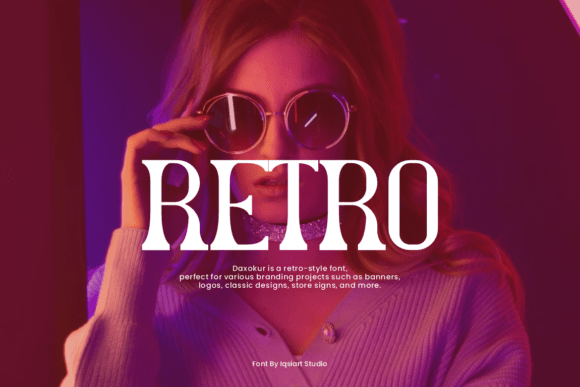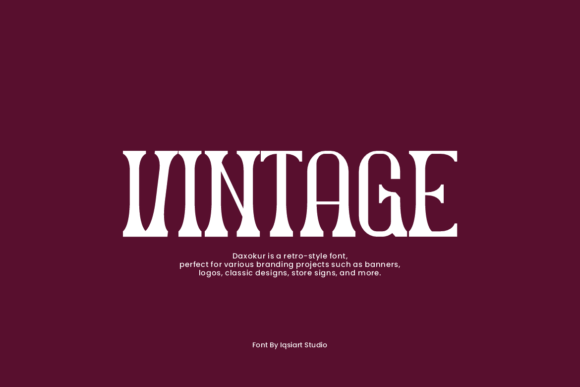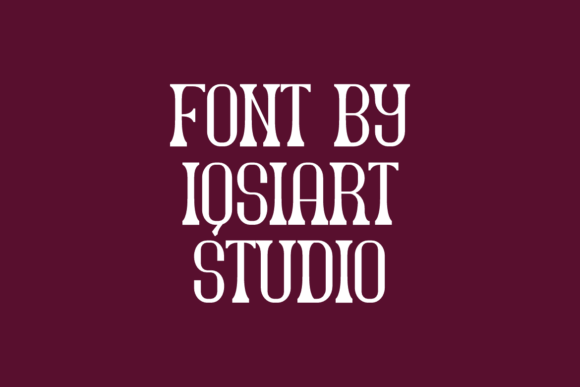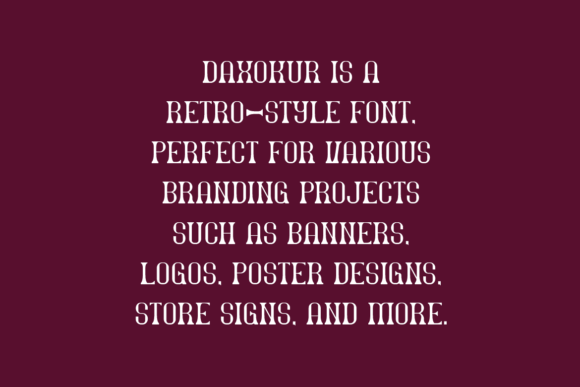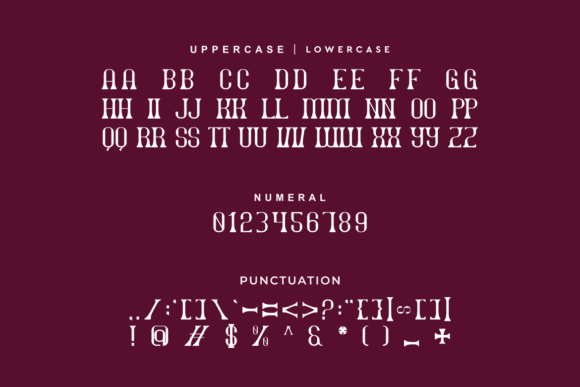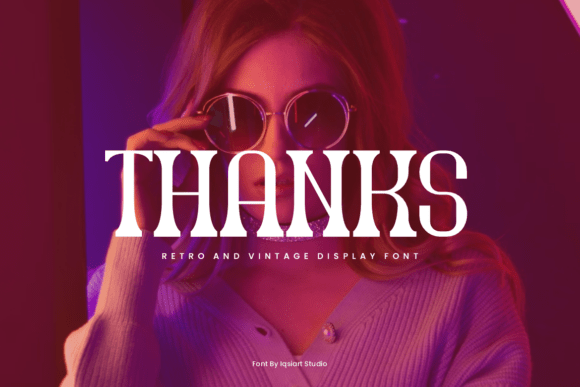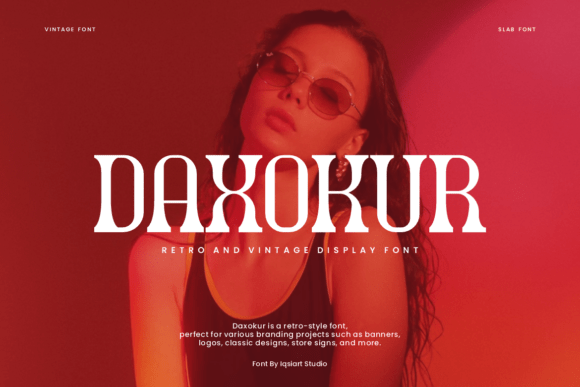
Daxokur Font: Elevate Your Designs with a Cool Display Font
Are you tired of using the same old fonts in your designs? Look no further than the Daxokur Font, a cool display font that’s sure to take your creative ideas to the next level. In this article, we’ll dive into the world of Daxokur, exploring its features, benefits, and uses, and show you how to make the most of this amazing font.
What is Daxokur Font?
Daxokur Font is a modern, stylish, and highly versatile display font that’s perfect for designers, crafters, and anyone looking to add a touch of personality to their work. With its unique and eye-catching design, Daxokur is sure to make your projects stand out from the crowd.
Key Features of Daxokur Font
- Unique Design: Daxokur Font boasts a distinctive and stylish design that’s sure to grab attention.
- Highly Versatile: Whether you’re working on a logo, poster, or social media graphic, Daxokur is the perfect choice.
- Easily Readable: Despite its bold and edgy design, Daxokur is surprisingly easy to read, making it perfect for headlines and titles.
- Multilingual Support: Daxokur Font supports multiple languages, making it a great choice for designers working on international projects.
Benefits of Using Daxokur Font
So, why should you choose Daxokur Font for your next project? Here are just a few benefits of using this amazing font:
- Adds Personality: Daxokur Font adds a touch of personality and style to your designs, setting them apart from the competition.
- Enhances Creativity: With Daxokur, you can experiment with new and innovative design ideas, pushing the boundaries of what’s possible.
- Perfect for Branding: Daxokur Font is ideal for creating memorable and impactful brand identities that leave a lasting impression.
Still not sure how to use Daxokur Font? Here are a few ideas to get you started:
- Logos and Branding: Use Daxokur Font to create a memorable and impactful logo that sets your brand apart.
- Posters and Flyers: Add a touch of personality to your posters and flyers with Daxokur Font, making them stand out from the crowd.
- Social Media Graphics: Use Daxokur Font to create eye-catching social media graphics that grab attention and drive engagement.
- Packaging Design: Add a touch of style and personality to your packaging design with Daxokur Font, making your products stand out on store shelves.